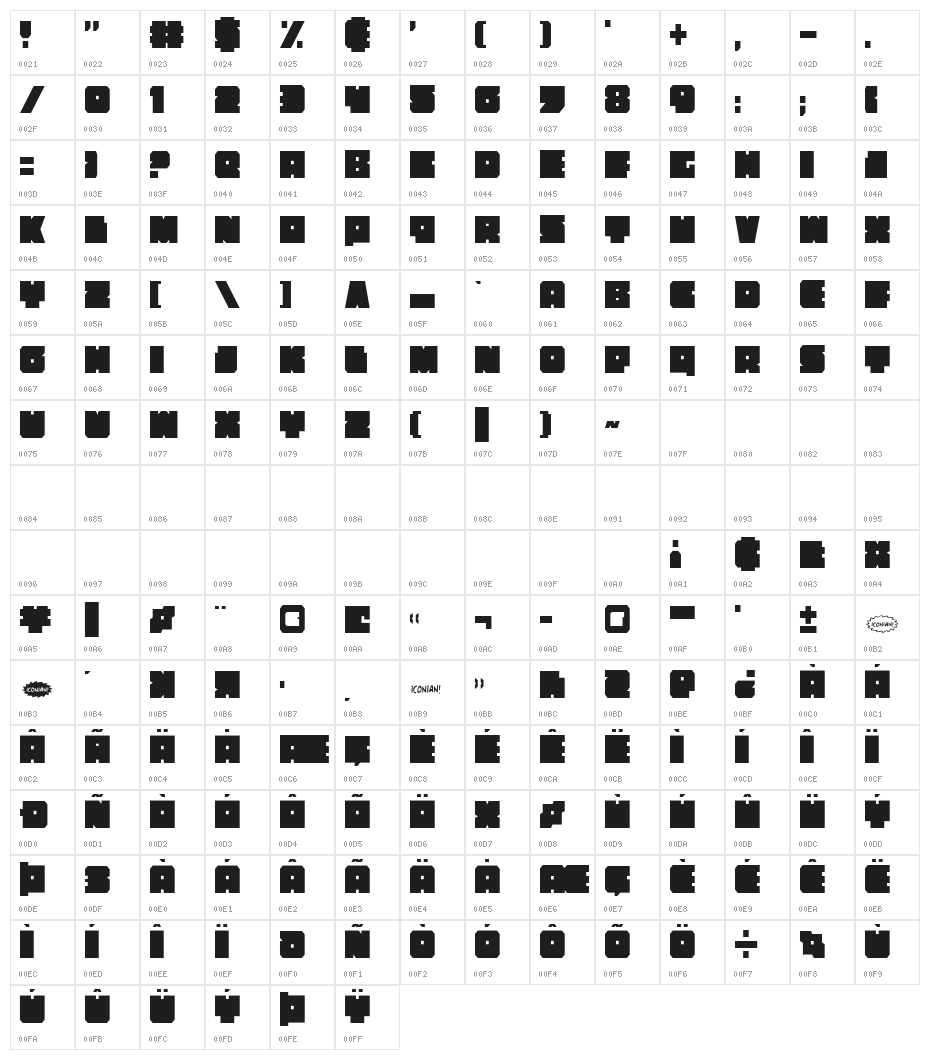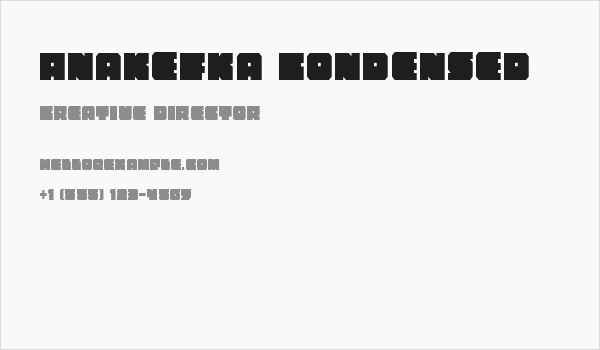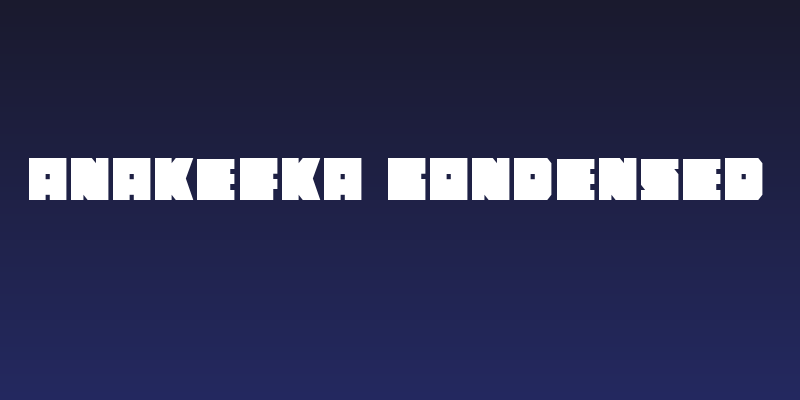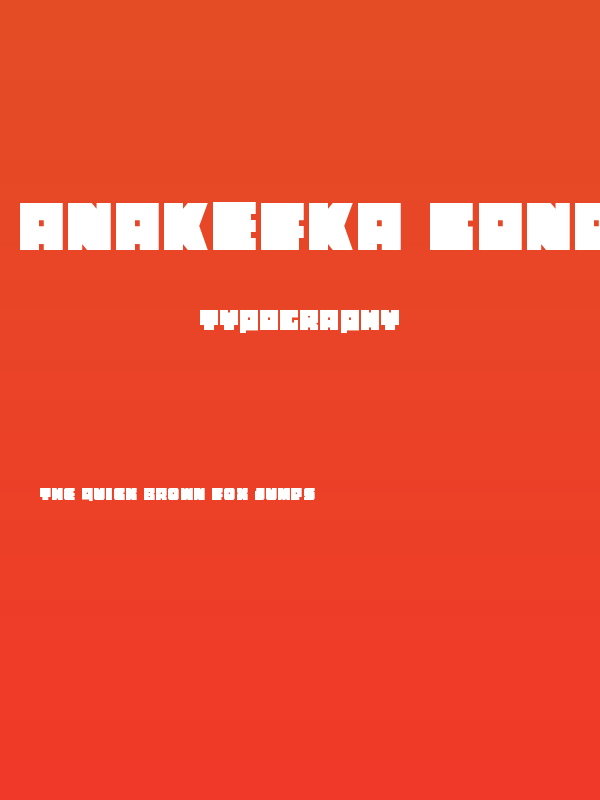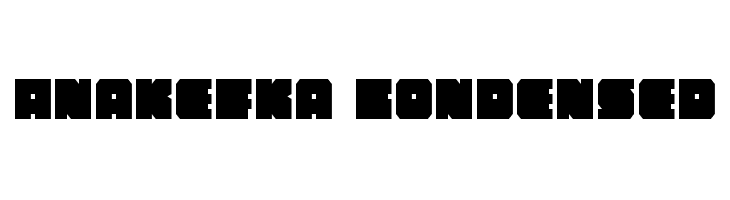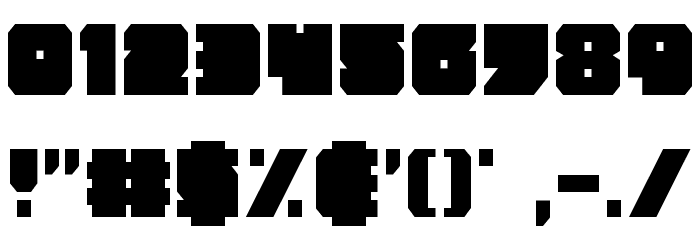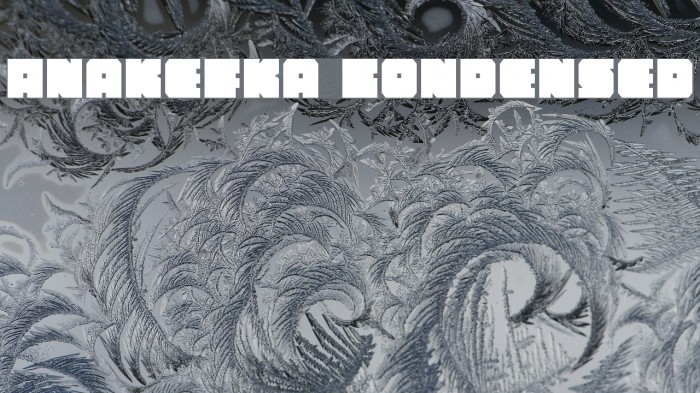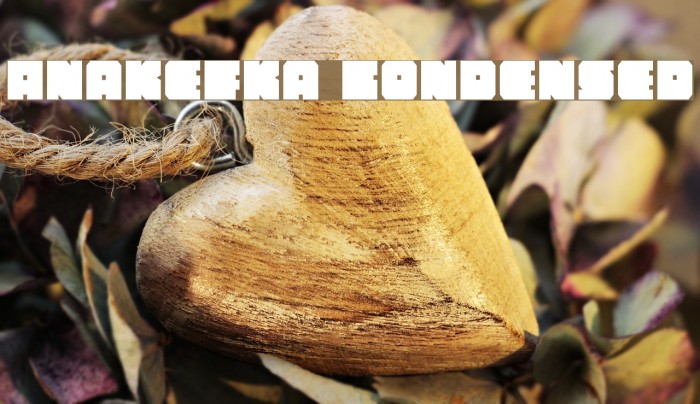
Anakefka Condensed Font
Anakefka Condensed Description
This font features a bold and condensed style with a strong geometric influence. The characters are blocky and robust, with minimal curves and a focus on straight lines and sharp angles. The uppercase and lowercase letters maintain a consistent height, contributing to a uniform appearance. The numbers and special characters follow the same design principles, ensuring a cohesive look across all glyphs. This font's distinct and powerful presence makes it ideal for attention-grabbing designs.
| Proposed Projects | Ideal for posters, headlines, logos, and branding materials that require a strong visual impact. |